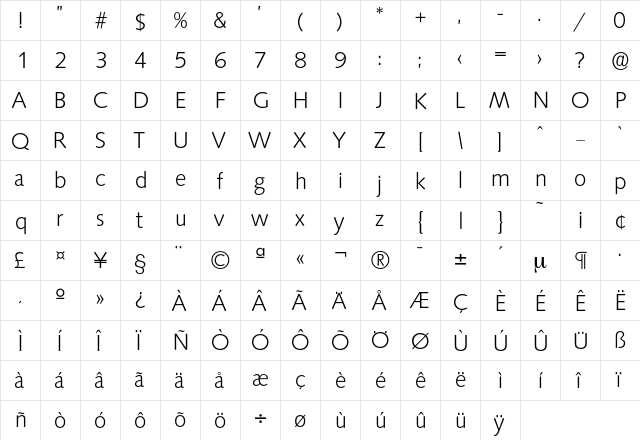
Saxony-Light Regular
Design Context for Saxony-Light Typeface
Saxony-Light offers clean, dependable letterforms without strong stylistic allegiance, making it a practical choice for designers who need flexibility. Its slender proportions lend an understated elegance to any composition.
Pro Tip: Use Saxony-Light in both headline and body roles to test its range before committing to a single application.